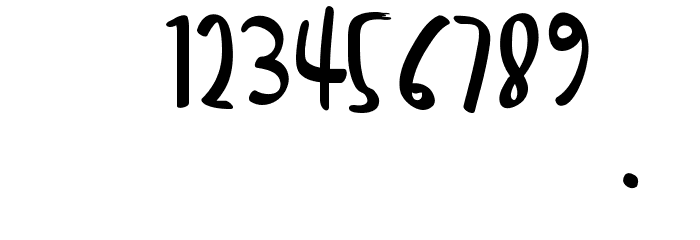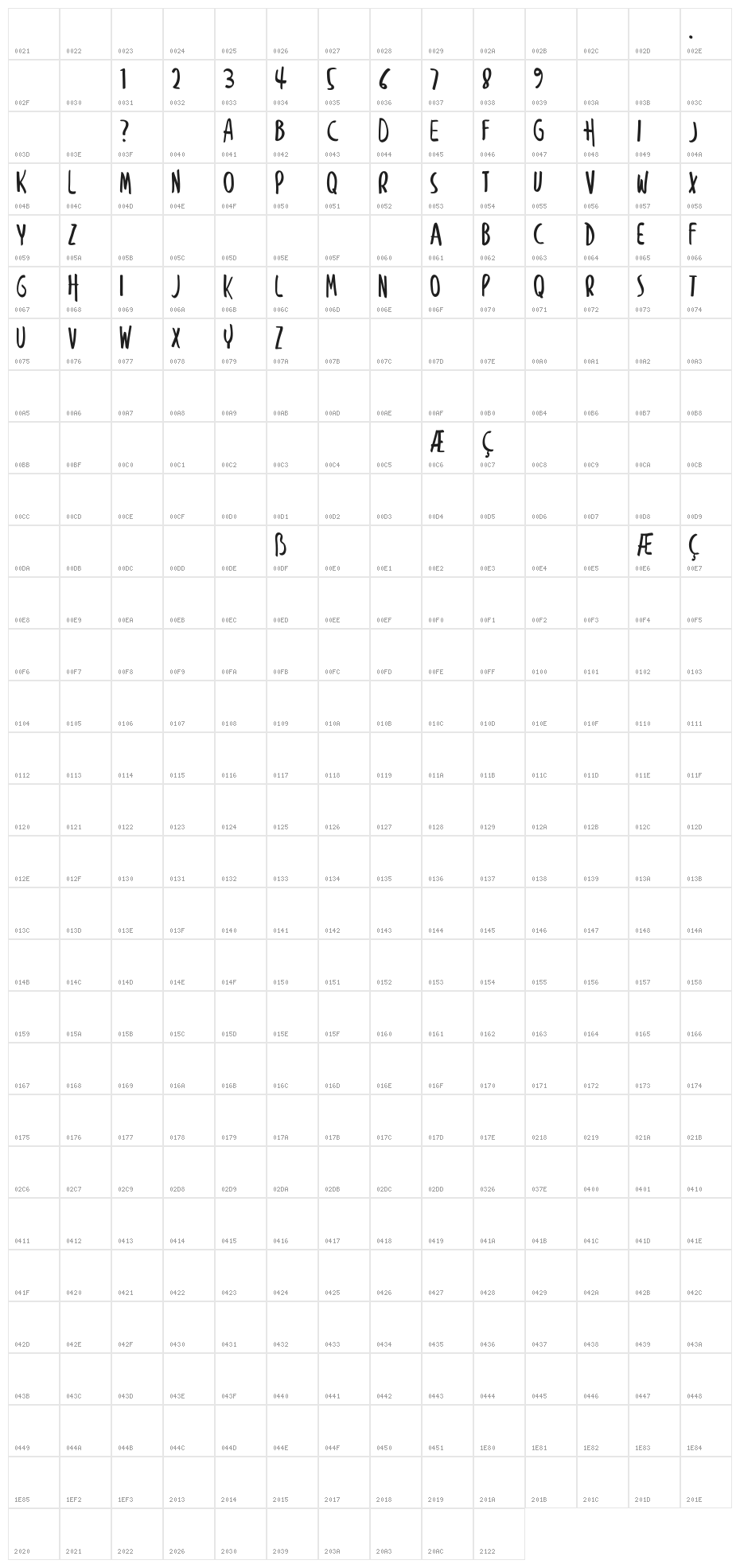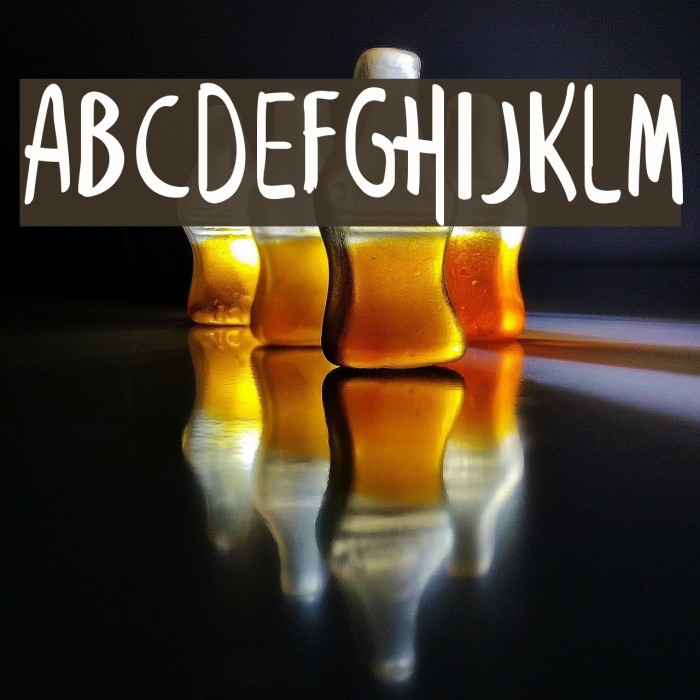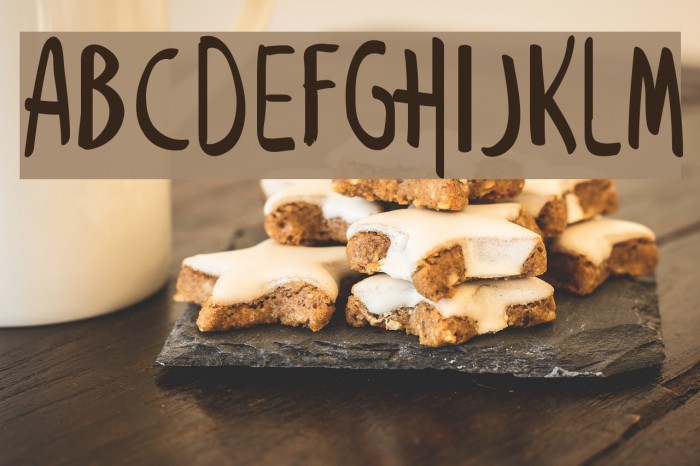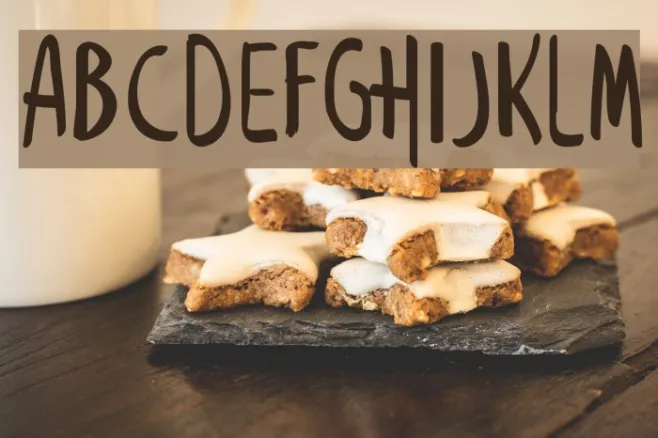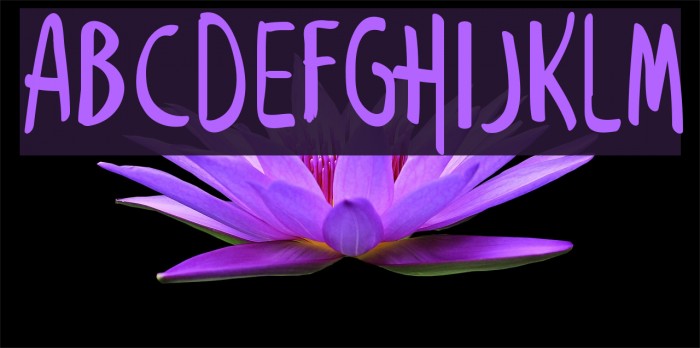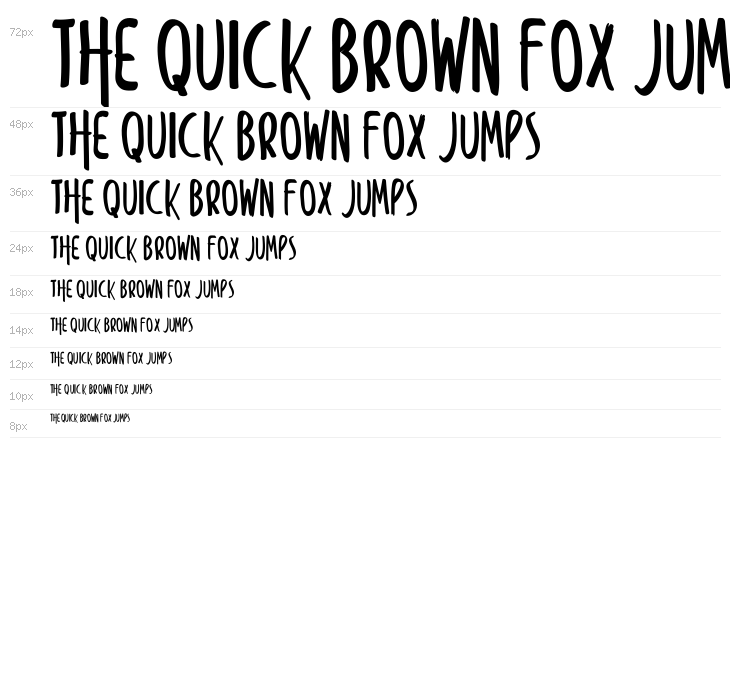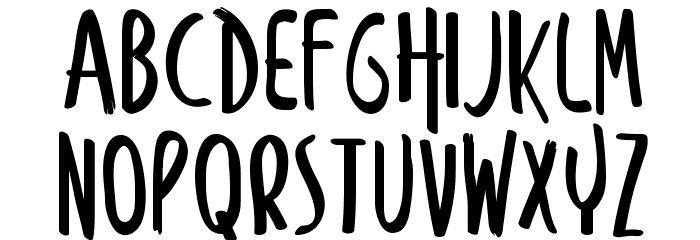
Snicker Snack Font
Snicker Snack Description
This font features a playful and casual handwritten style, characterized by its bold and slightly irregular strokes. The letters have a whimsical, almost cartoonish appearance, with a consistent thickness throughout each character. The uppercase and lowercase letters maintain a uniform height, contributing to a cohesive look. The numbers are equally playful, matching the style of the alphabet. This font's unique personality makes it ideal for projects that require a fun and informal touch.
| Overall Style | Playful |
| Proposed Projects | Ideal for children's book covers, playful branding, casual invitations, and social media graphics. |